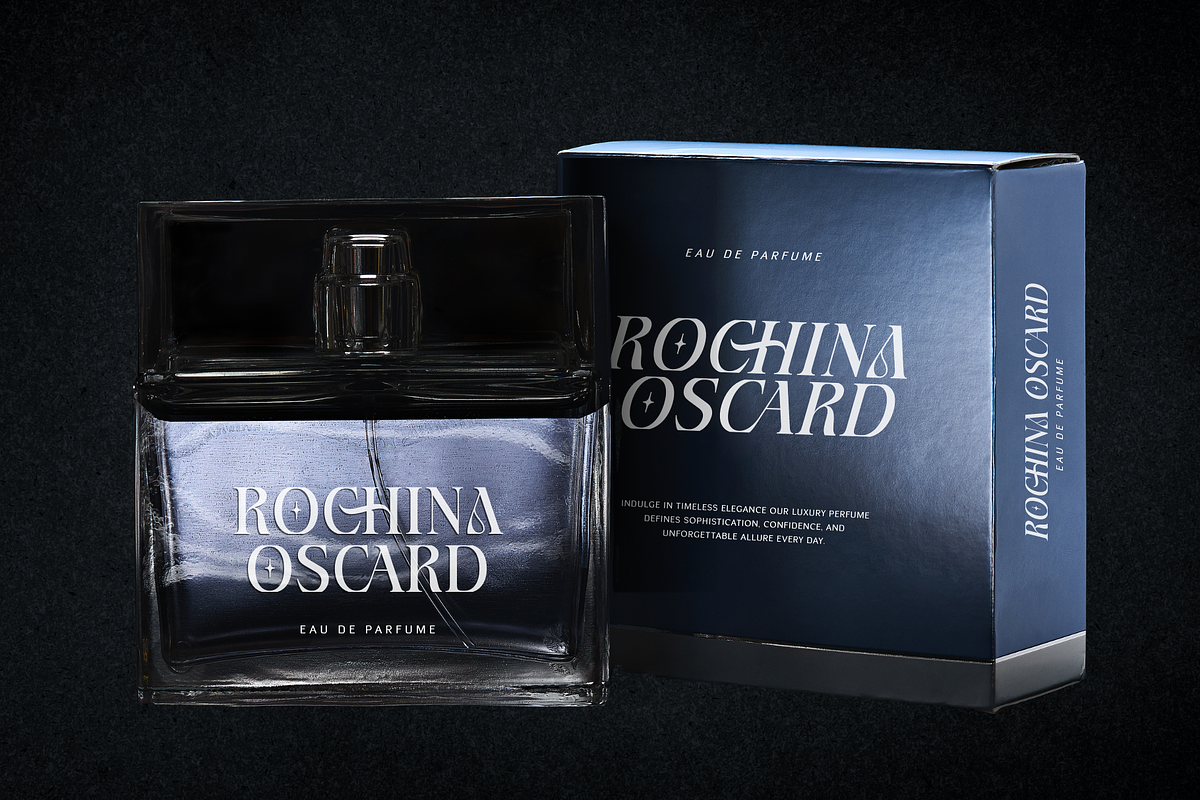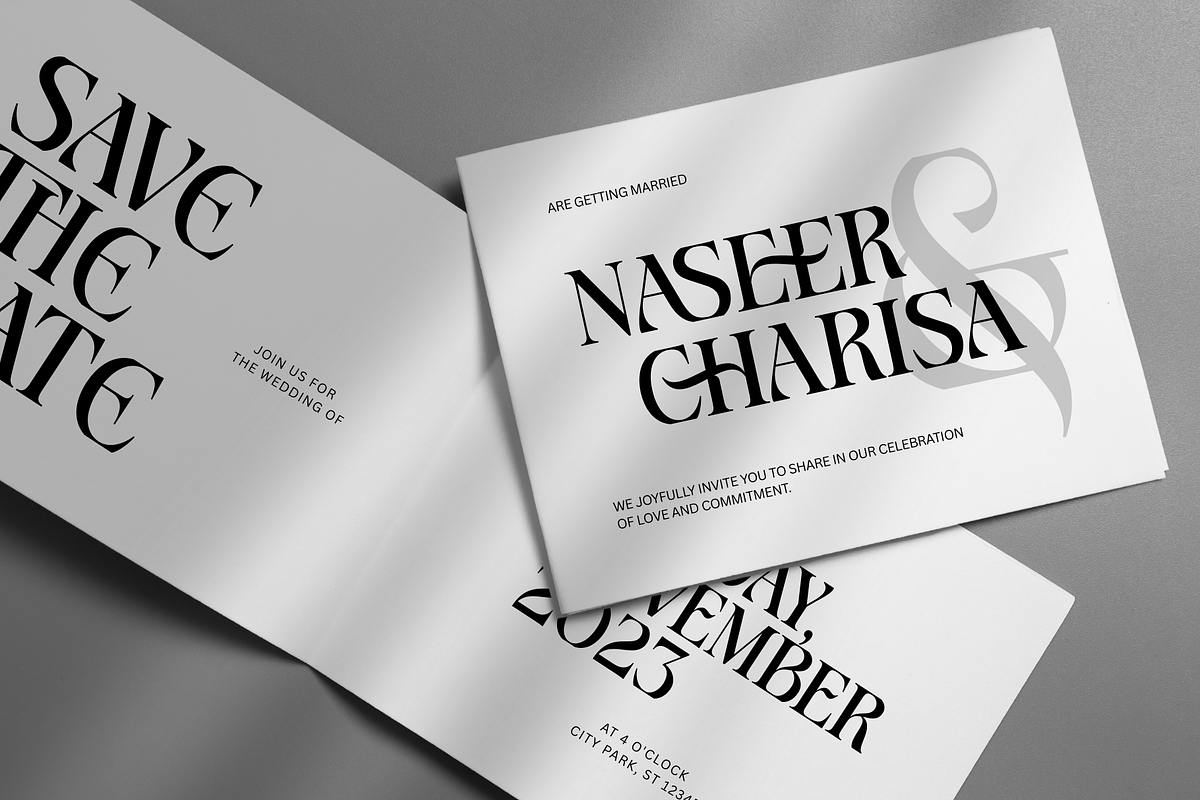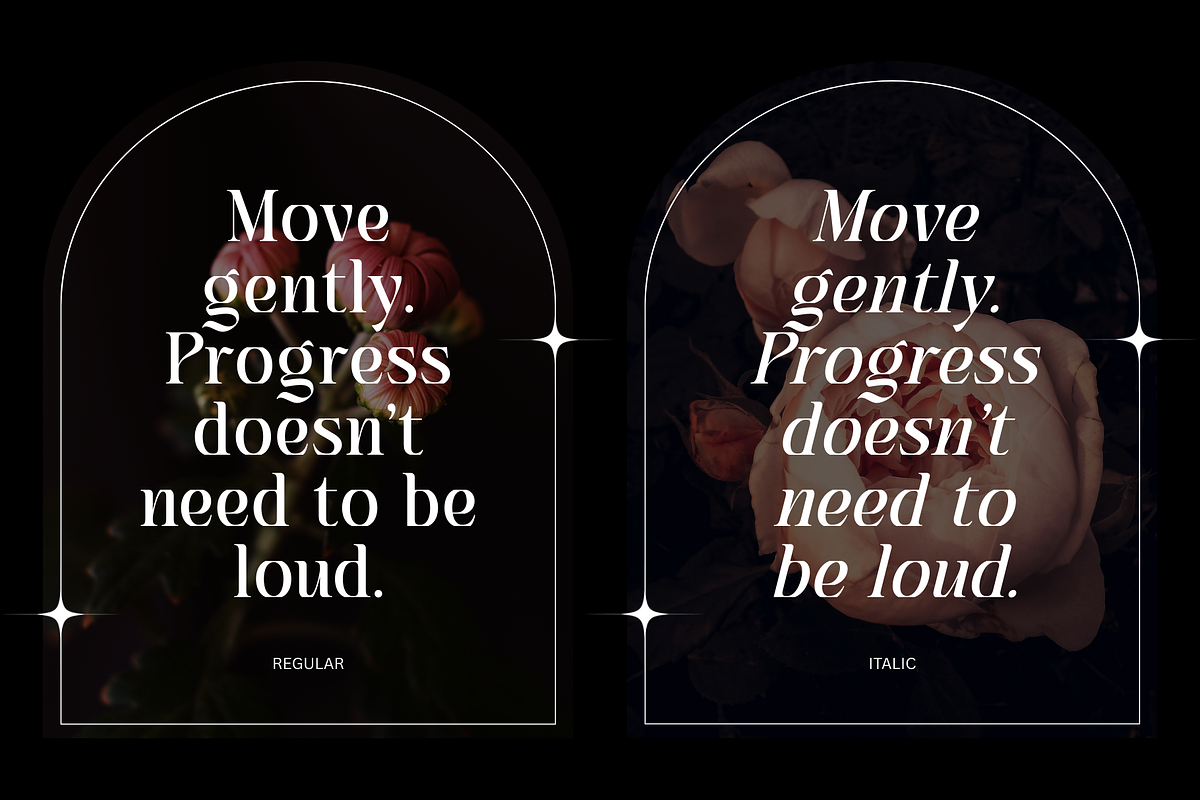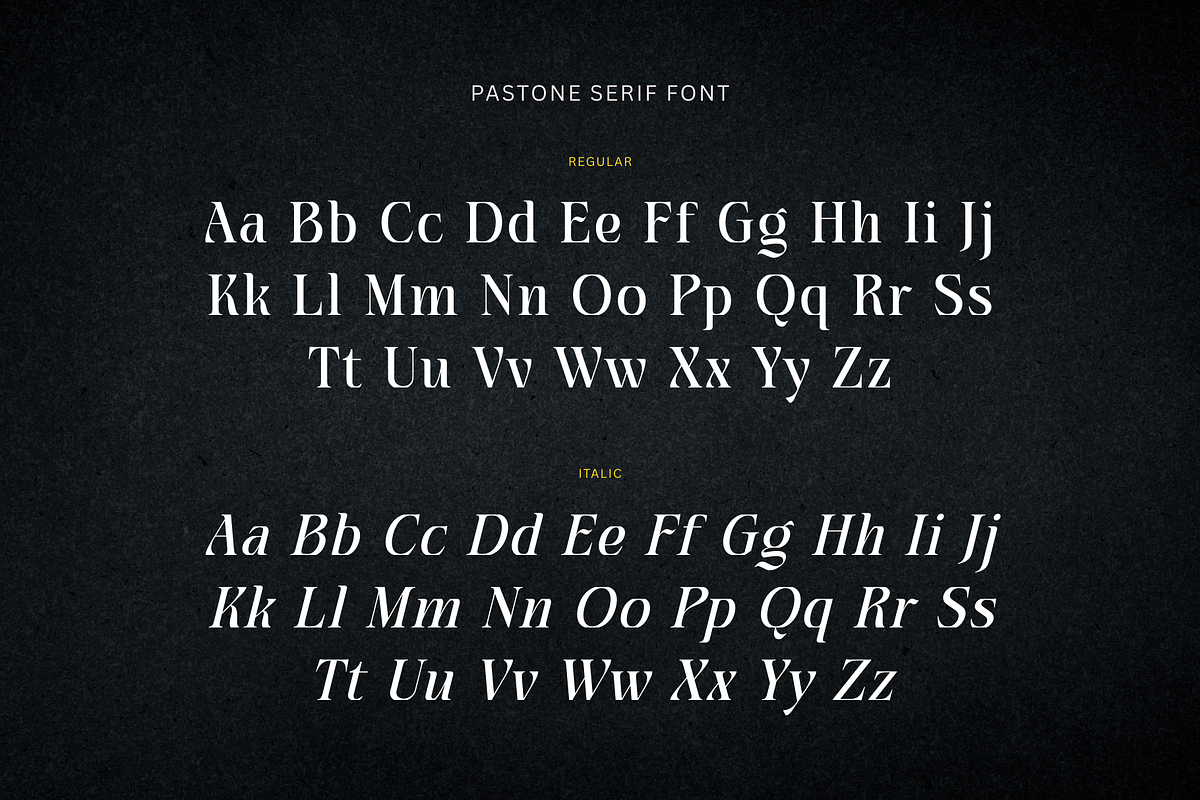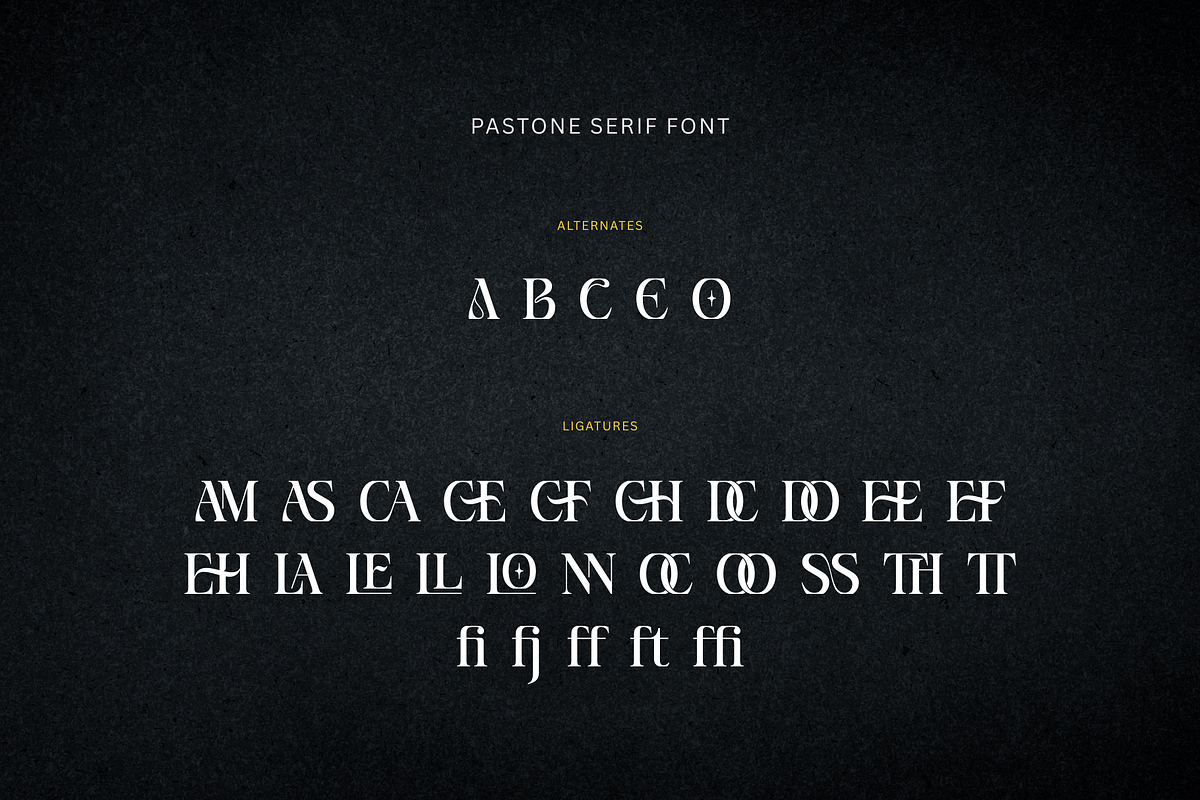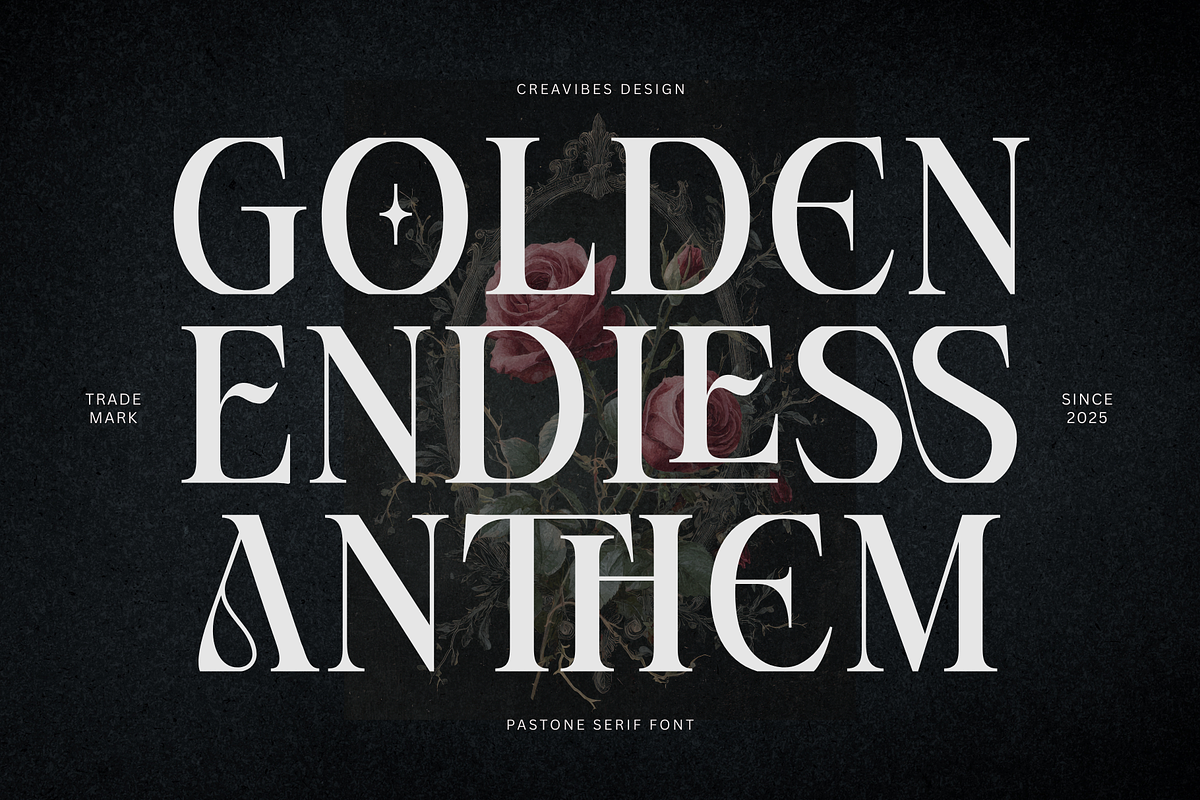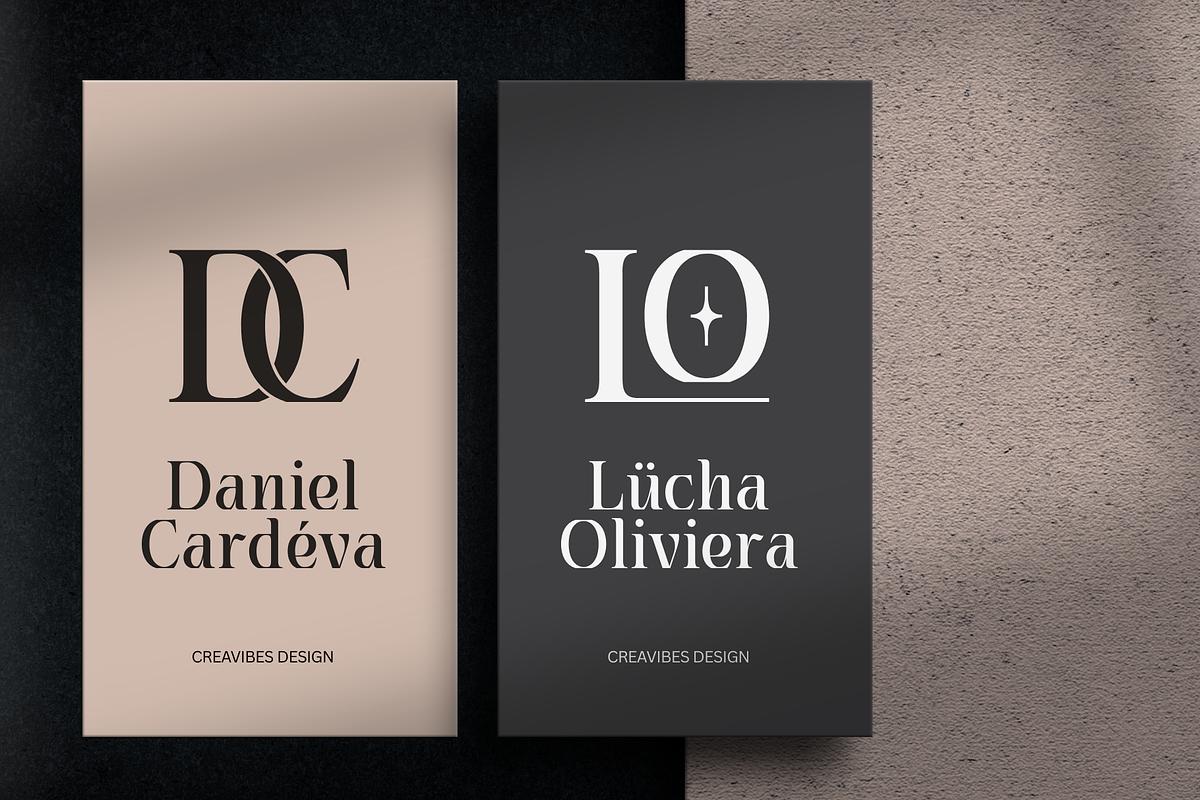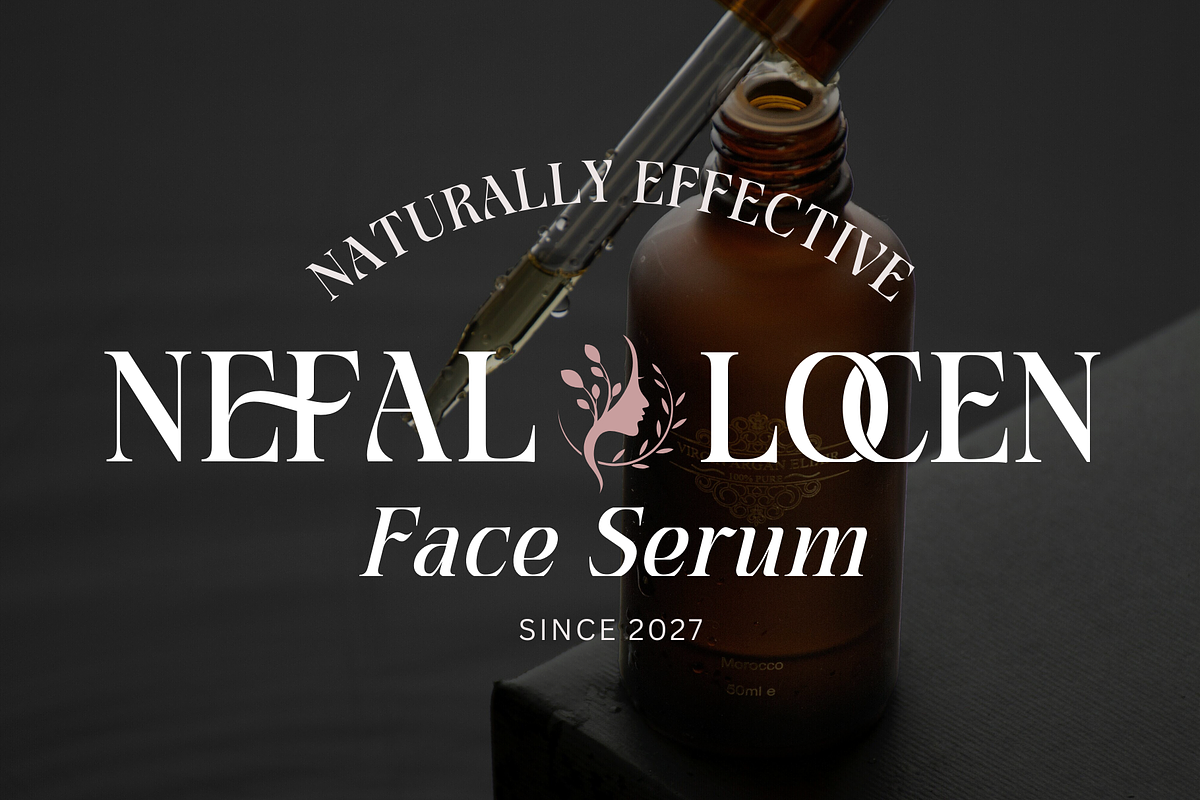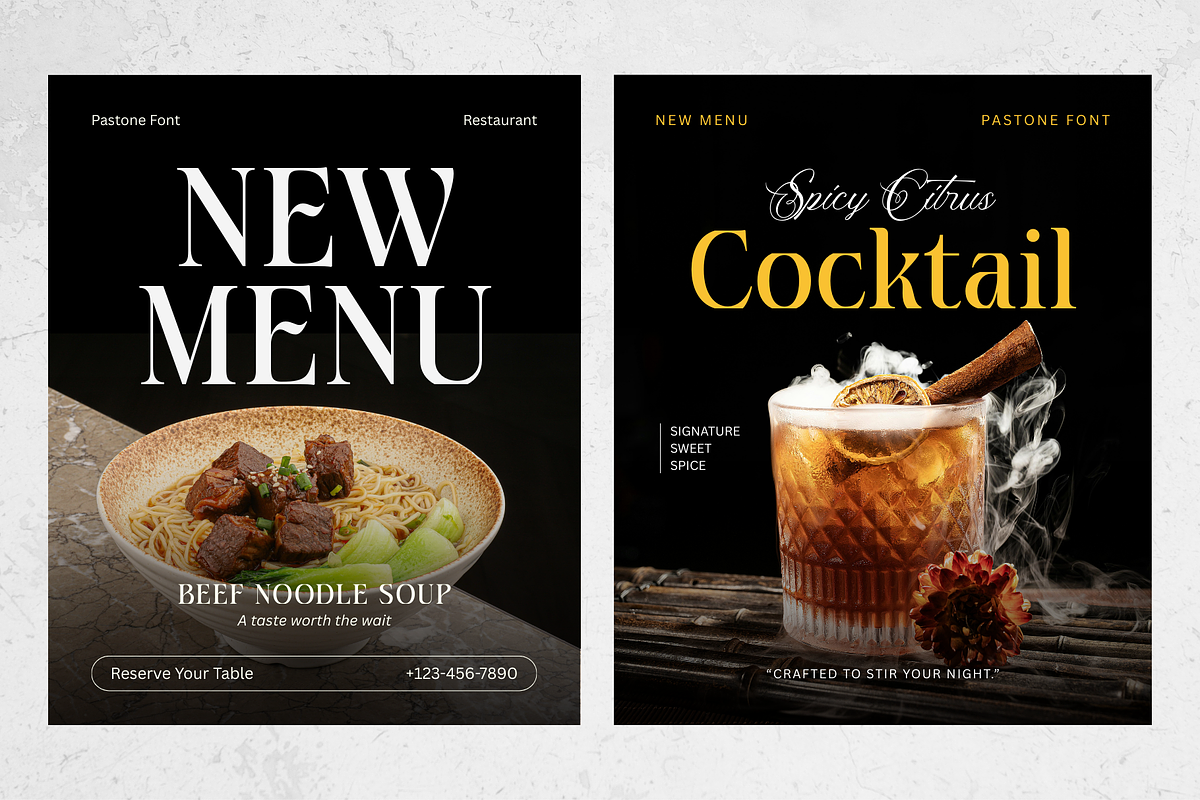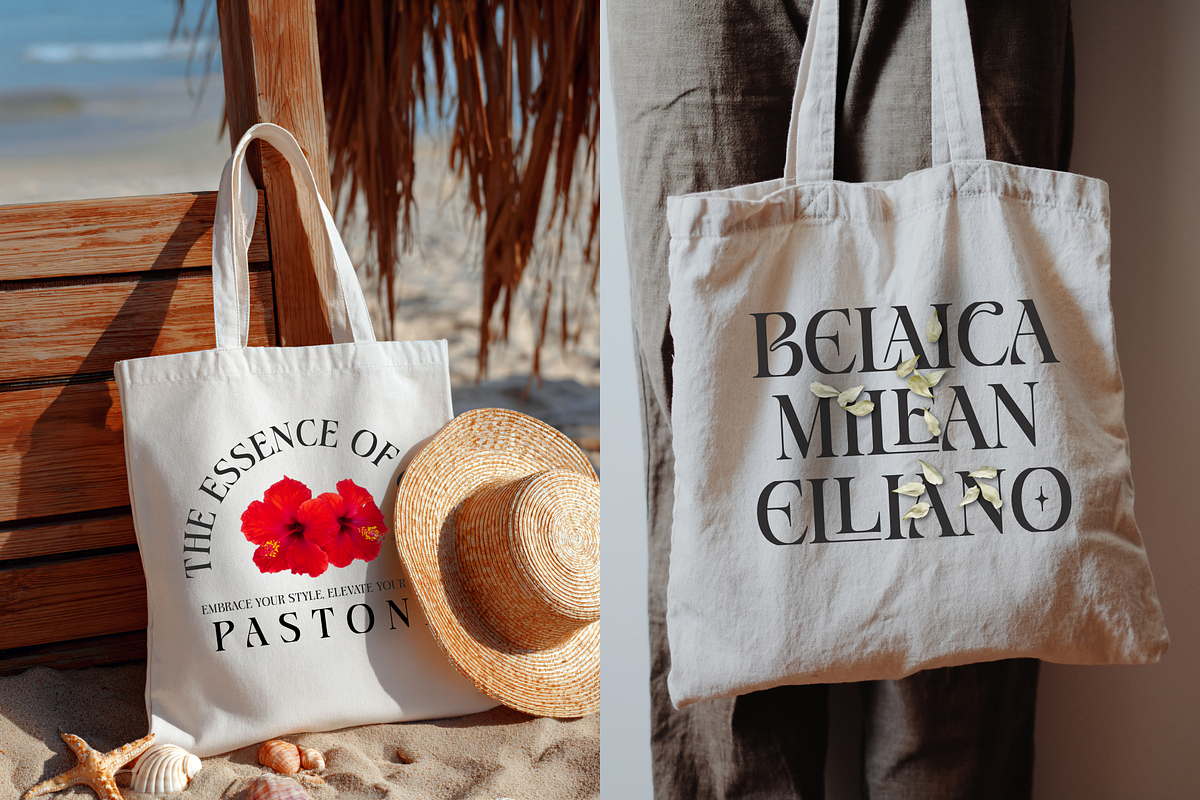
Pastone - Elegant Serif Font
Pastone is a bold and refined serif display font that radiates elegance and confidence. With its strong contrast, sharp serifs, and stylish curves, Pastone is perfect for headlines, logos, magazines, and luxury branding projects. This font combines classic sophistication with a modern edge, making it ideal for designs that demand attention and timeless appeal.
- Regular & Italic styles
- Alternates & ligatures
- Numerals & punctuation